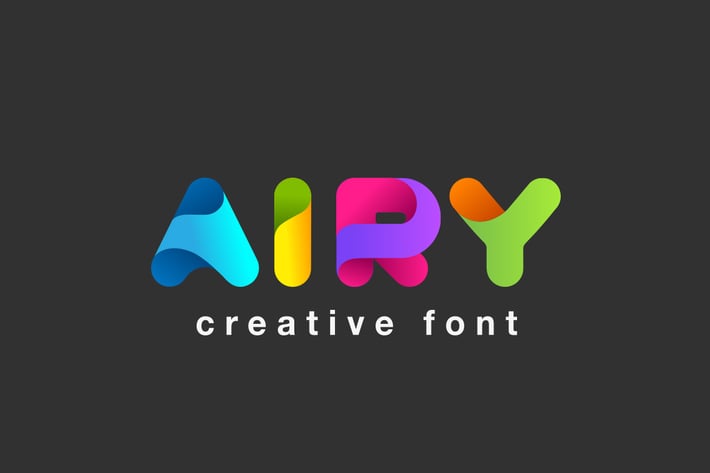
Airy Font
Airy is friendly innovative creative font can be used as logo design and branding, titles & headers, posters & banners in such areas as high-tech, internet & computers, business innovations, sport & entertainment etc.